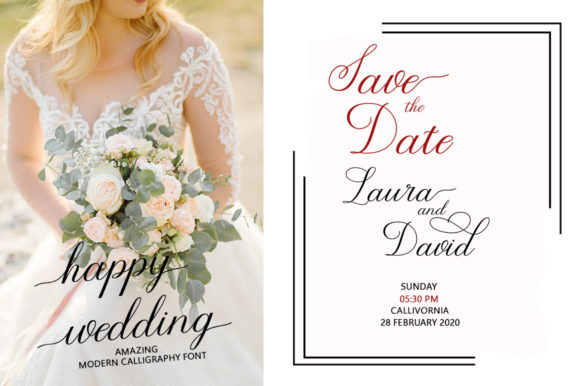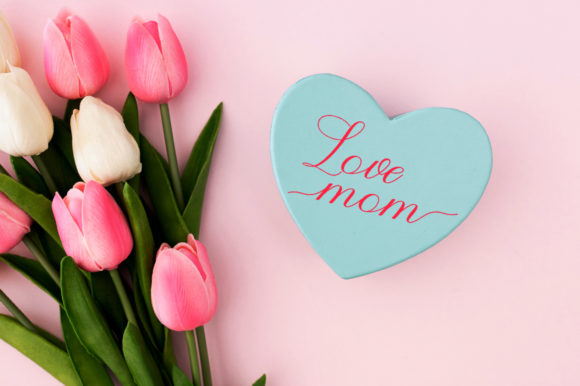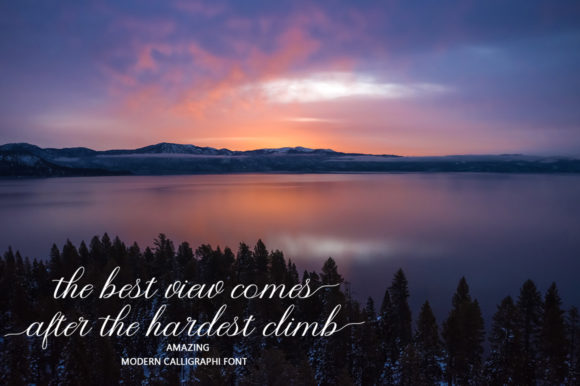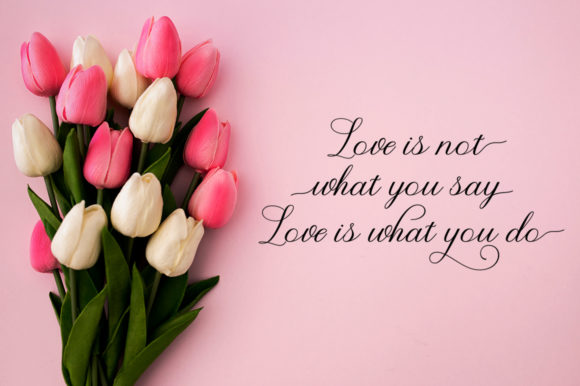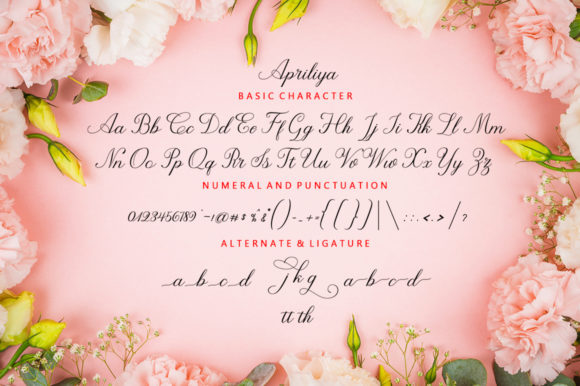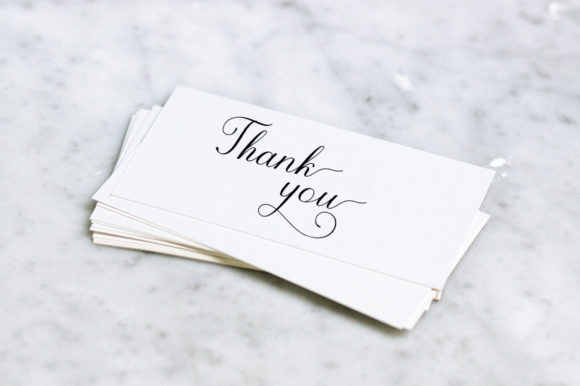
Discover the Timeless Elegance of Aprilliya Font
Have you ever been stuck on a design project, searching for the perfect font to convey the essence of a special moment? Maybe it was a wedding invitation or a book cover that needed a touch of sophistication. Whatever the case, I’m sure you’ll agree that the right font can make all the difference.
Enter Aprilliya Font, a beautiful script font designed to evoke a sense of classic luxury and elegance. Perfect for weddings, media, book covers, and more, Aprilliya Font is a versatile tool for designers looking to add a touch of sophistication to their work. With its refined lines and elegant curves, this font is sure to make a lasting impression.
As a designer, you know how valuable a well-chosen font can be. Aprilliya Font is a valuable addition to any design arsenal, offering a unique and timeless look that’s sure to elevate your work.
Aprilliya Font Key Features
- Font Family: Aprilliya, with 12 styles (Regular, Light, ExtraLight, Thin, UltraLight, Black, ExtraBlack, Heavy, ExtraHeavy, UltraHeavy, Bold, and ExtraBold)
- Size: 14,000+ glyphs, covering a wide range of languages and characters, including Latin, Cyrillic, Greek, and more
- Resolution: Optimized for high-resolution displays (Retina, 4K, and beyond), ensuring crisp and clear typography
- Unique Characteristics: Aprilliya’s distinctive design features a mix of modern and traditional elements, with a focus on legibility and readability, making it suitable for various design applications, including branding, publishing, and digital interfaces
Aprilliya Font Review
I recently had the chance to work with the Aprilliya font, and overall, I found it to be a unique and interesting addition to my design projects. ✨ The font’s quirky and playful nature makes it perfect for projects that require a bit of whimsy and personality.
Some of the things that stand out about the Aprilliya font include:
- ✨ Its high x-height, which makes it easy to read and recognize, even at smaller font sizes.
- ✨ The font’s varied line weights, which allow for a range of styling options and add visual interest to text.
- ✨ The font’s extensive language support, which makes it a great choice for international projects.
- ⚠️ The font’s irregularities can sometimes make it difficult to use for body text or other situations where readability is key.
- ⚠️ The font’s quirky nature can sometimes feel overwhelming or distracting, especially in more straightforward design projects.
Overall, I think the Aprilliya font is a great choice for designers who want to add a bit of personality to their projects. While it may not be the best choice for every situation, it’s definitely worth considering for projects that require a bit of flair and creativity.
Aprilliya Font is ideal for creating elegant and sophisticated designs, making it perfect for:
- Business cards and branding materials
- Magazine and book covers
- High-end packaging designs
Remember to use Aprilliya Font in conjunction with high-quality images and graphics to create a truly professional-looking design.